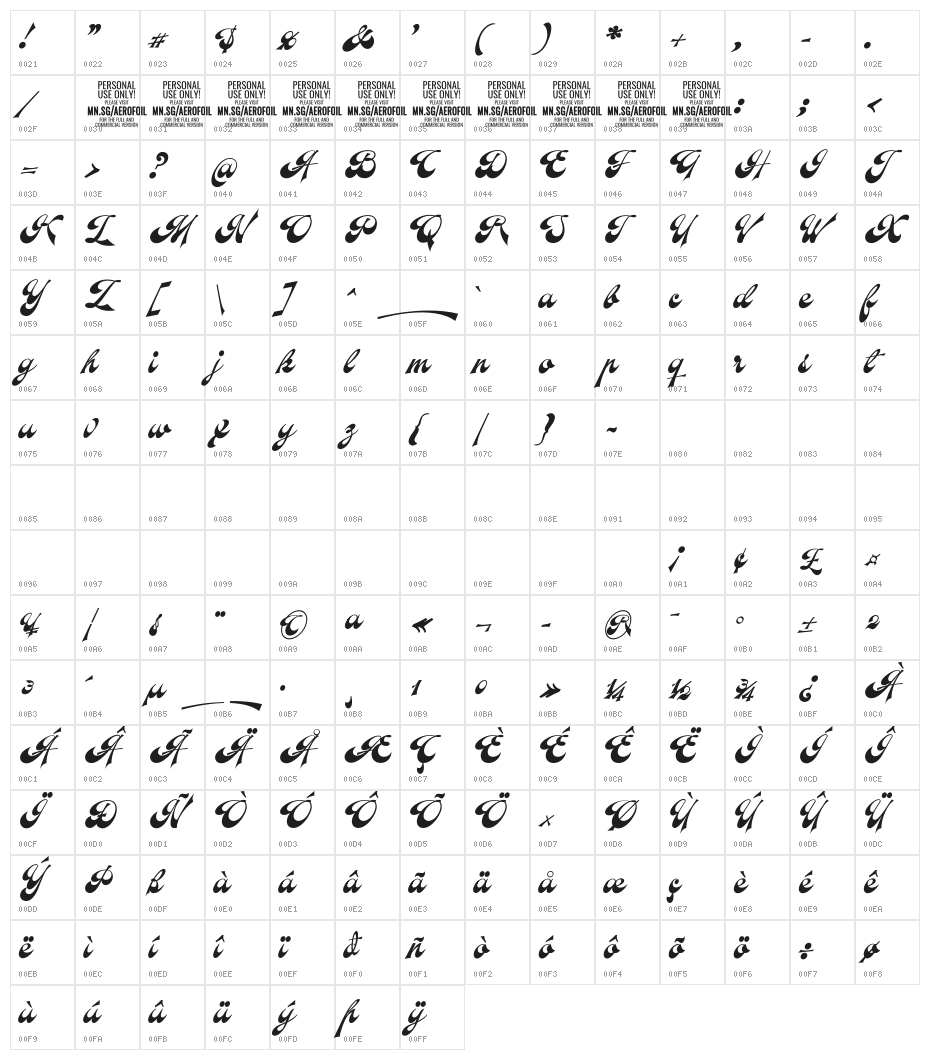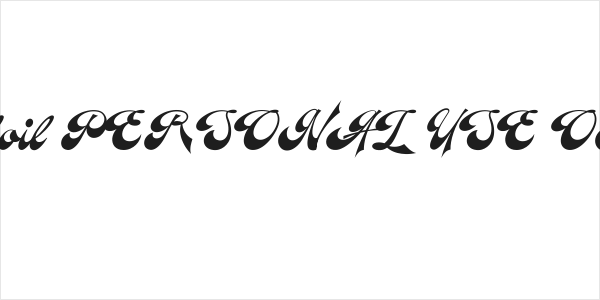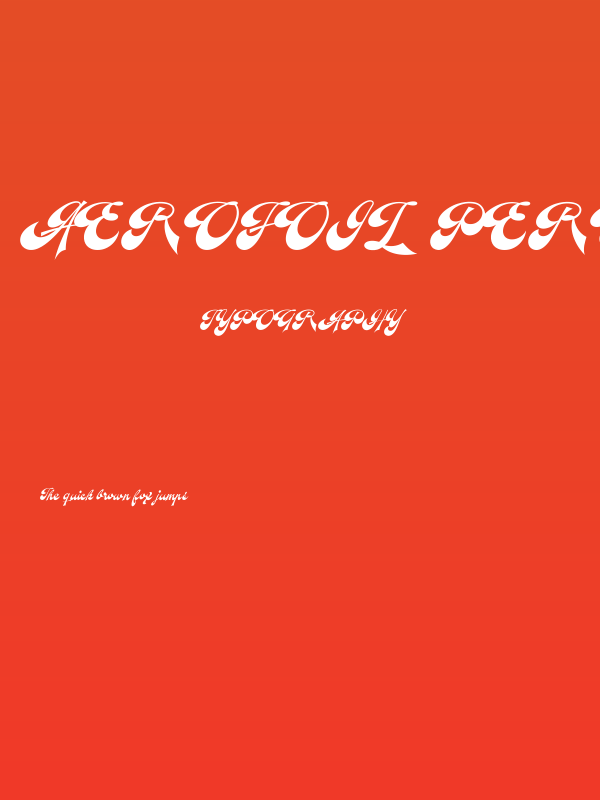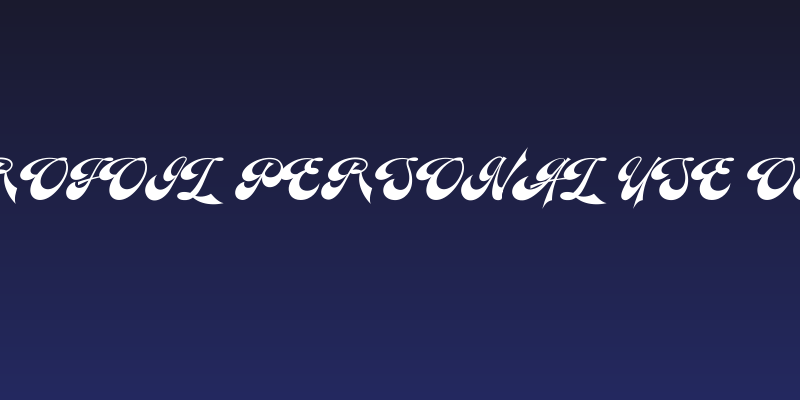
Aerofoil PERSONAL USE ONLY Font
Aerofoil PERSONAL USE ONLY Description
This font features a bold and flowing script style, characterized by its elegant and dynamic curves. The letters are connected, creating a sense of fluidity and movement. The uppercase letters are particularly ornate, with exaggerated swashes and flourishes that give the font a dramatic and artistic flair. The lowercase letters maintain the same fluidity, with a slightly more restrained design that ensures readability. The numbers and special characters are designed to match the overall style, with similar curves and embellishments. This font is ideal for projects that require a touch of elegance and sophistication, such as invitations, branding, and decorative headlines.
Use CaseHeadlines, Logos, Invitations
Proposed ProjectsIdeal for wedding invitations, luxury branding, decorative headlines, and artistic designs.